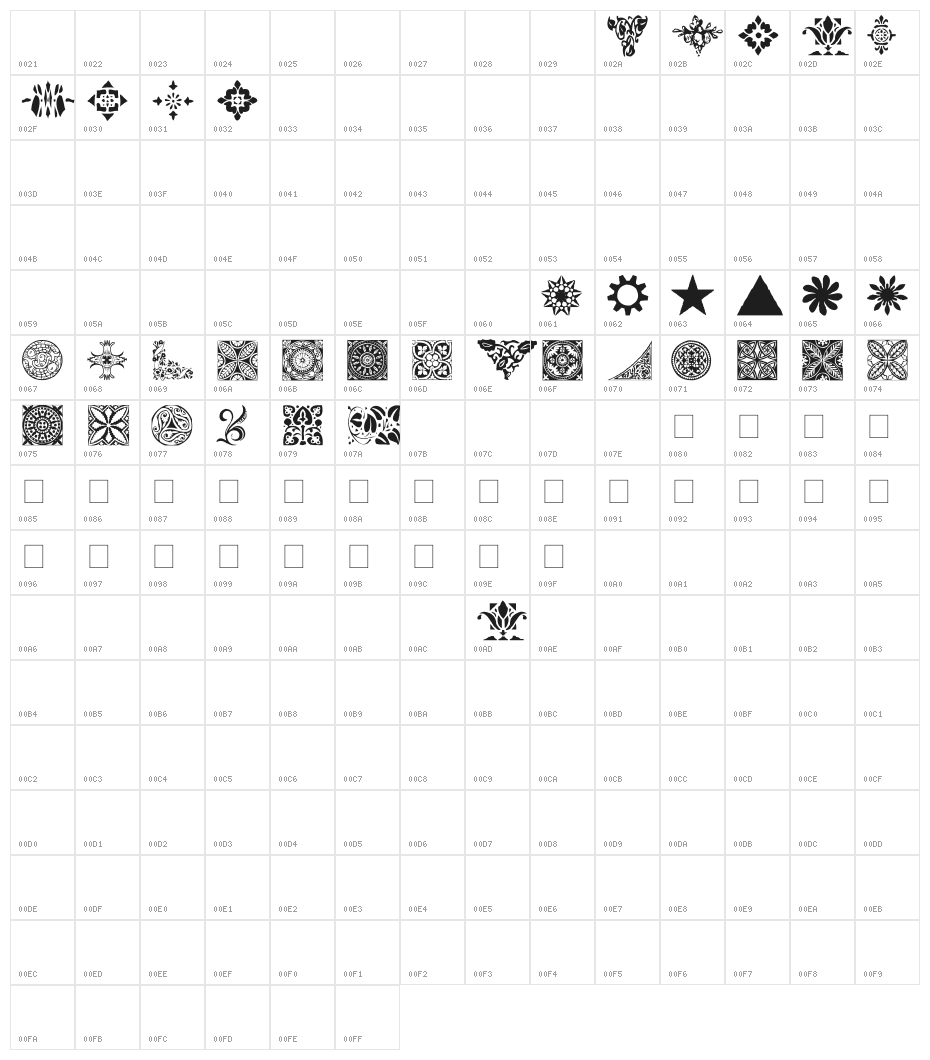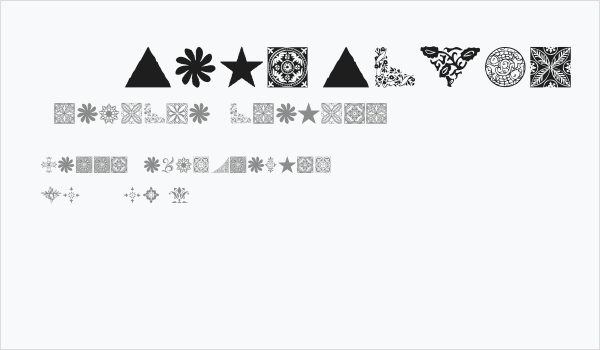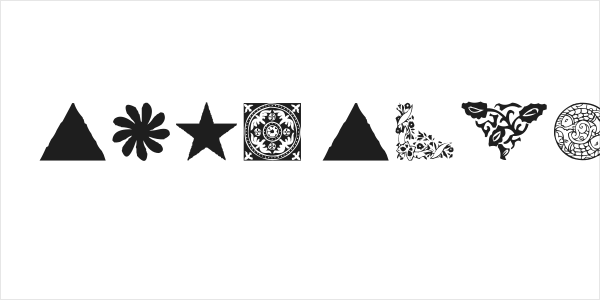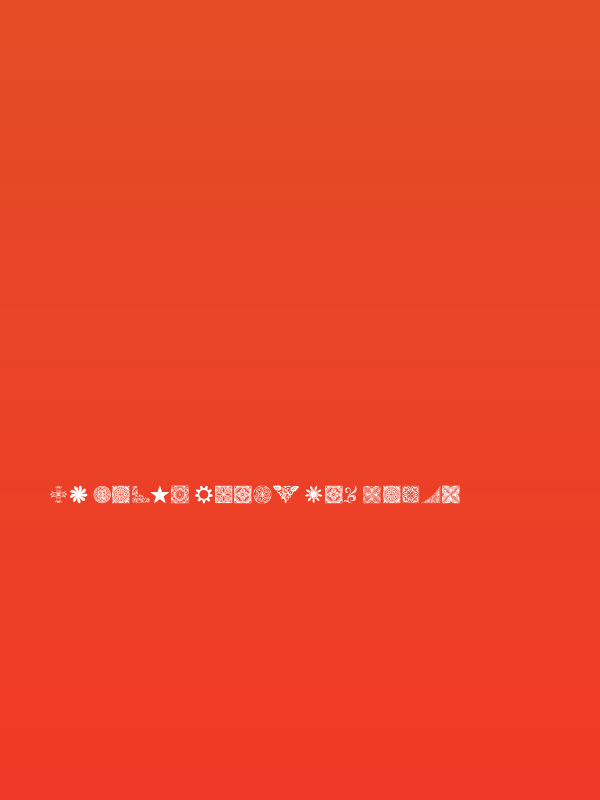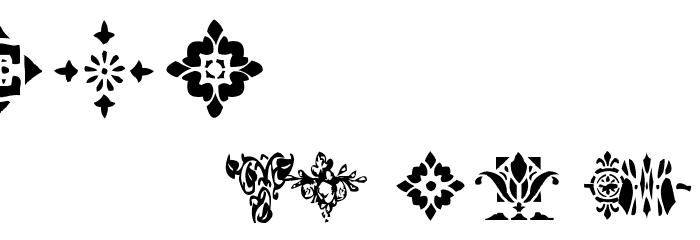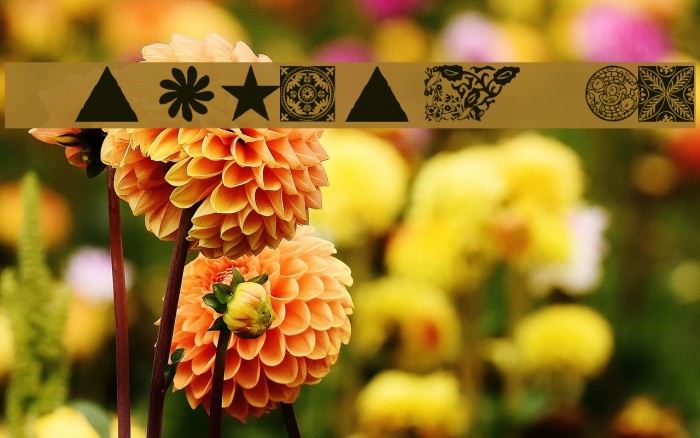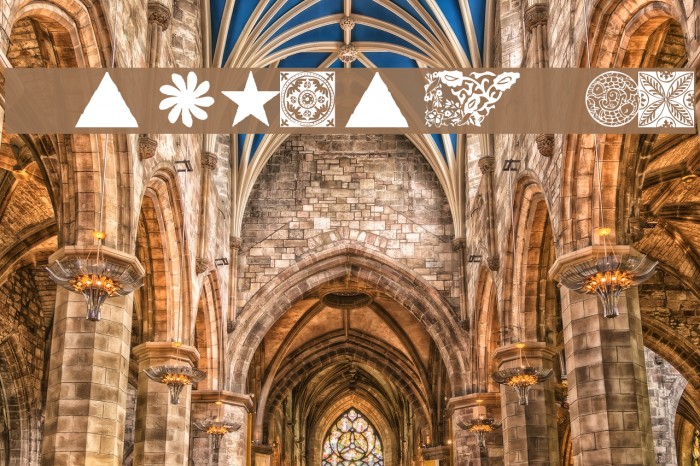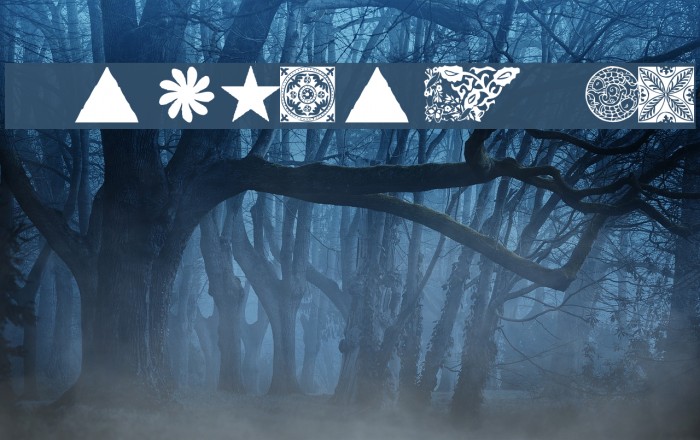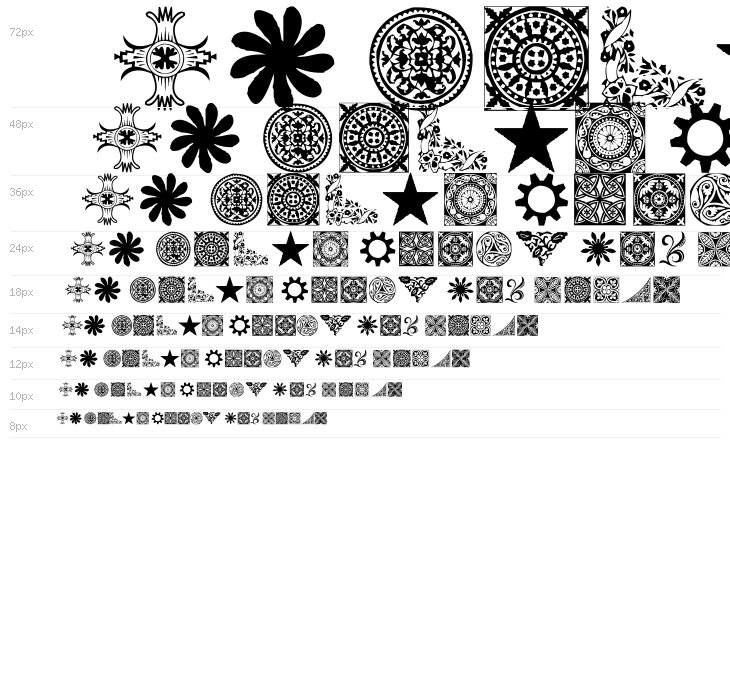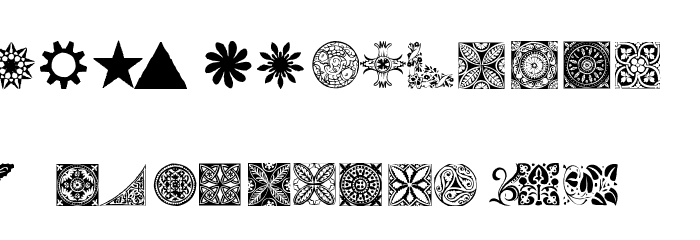
AEZ deco dings Font
This collection features a series of intricate decorative symbols and shapes, each with a unique and ornate design. The elements range from geometric shapes like stars and triangles to more complex floral and abstract motifs. Each symbol is crafted with attention to detail, showcasing a variety of patterns and textures that give them a rich, ornamental quality. The designs are bold and striking, making them suitable for decorative purposes where a touch of elegance and sophistication is desired. The collection includes a diverse array of motifs, ensuring versatility in application.
| Use Case | Logos, Decorative elements, Graphic design |
| Proposed Projects | Ideal for use in graphic design projects such as invitations, posters, and decorative borders. Suitable for creating unique logos or as embellishments in digital artwork. |